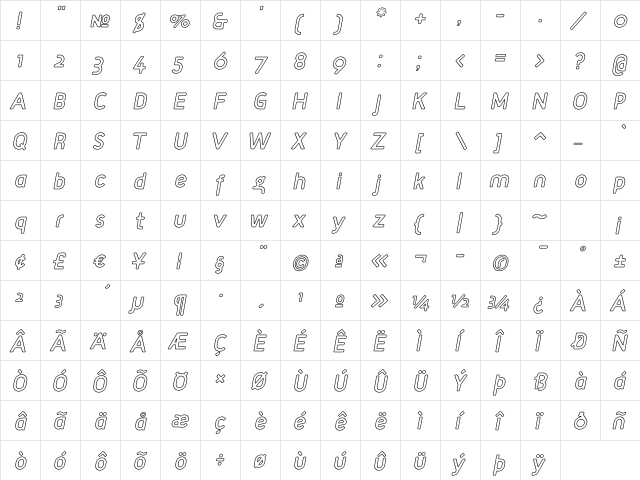
TargetOpen Italic Regular
Design Context for TargetOpen Italic Typeface
TargetOpen Italic is a composed and adaptable typeface that performs quietly and consistently across a wide range of design contexts. The slanted form adds forward momentum and visual energy.
Pro Tip: Try TargetOpen Italic for annotation and caption copy alongside an upright companion — the contrast in angle creates a dynamic but ordered typographic system.